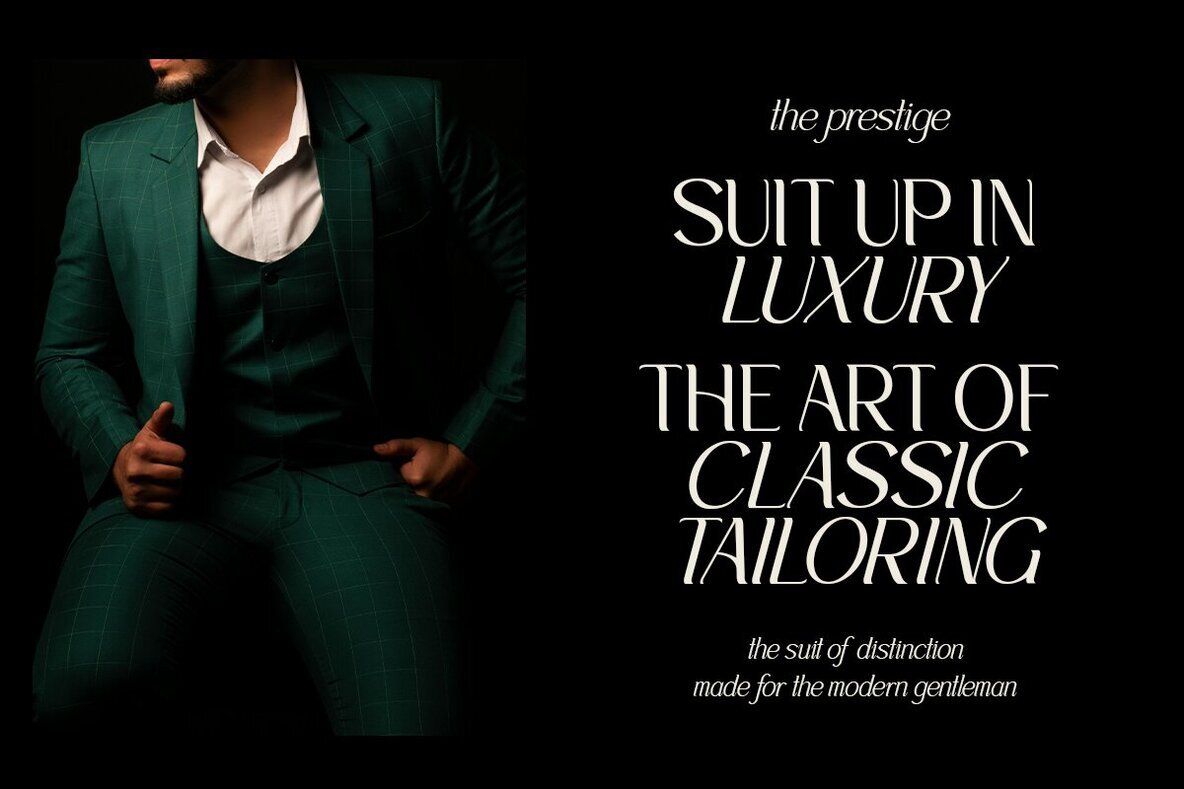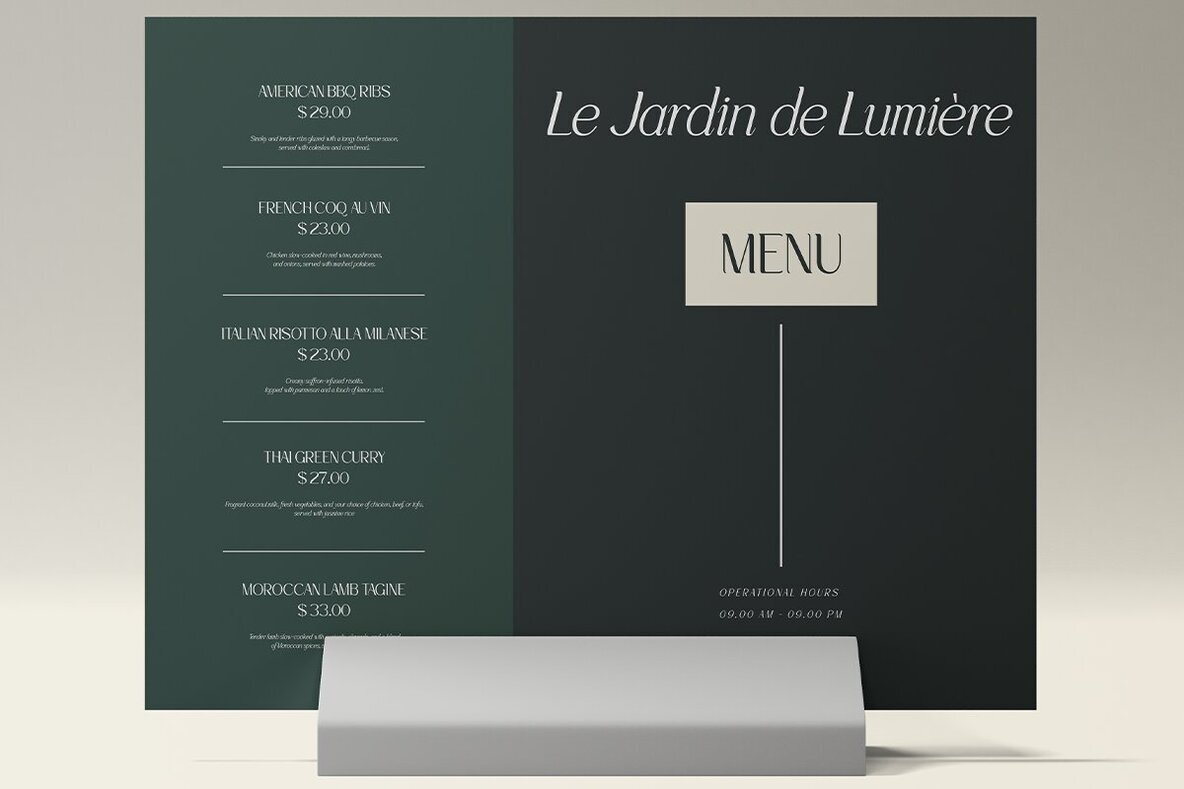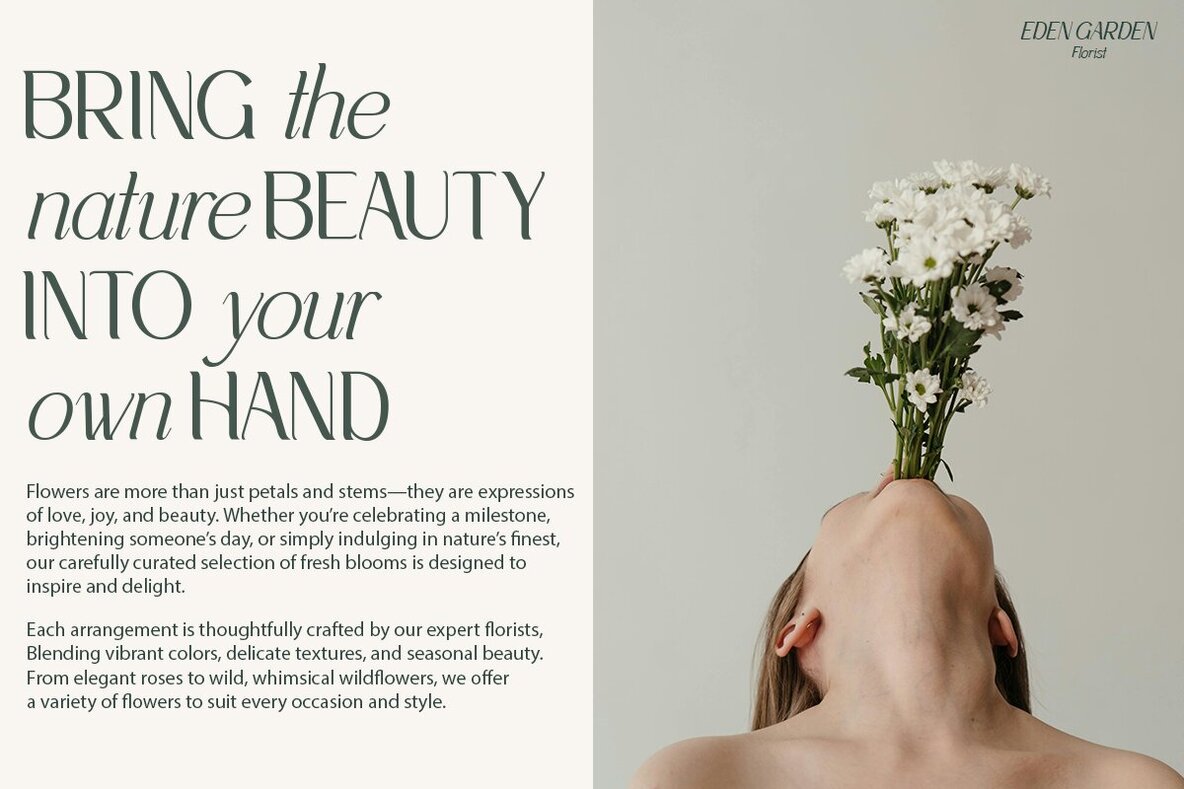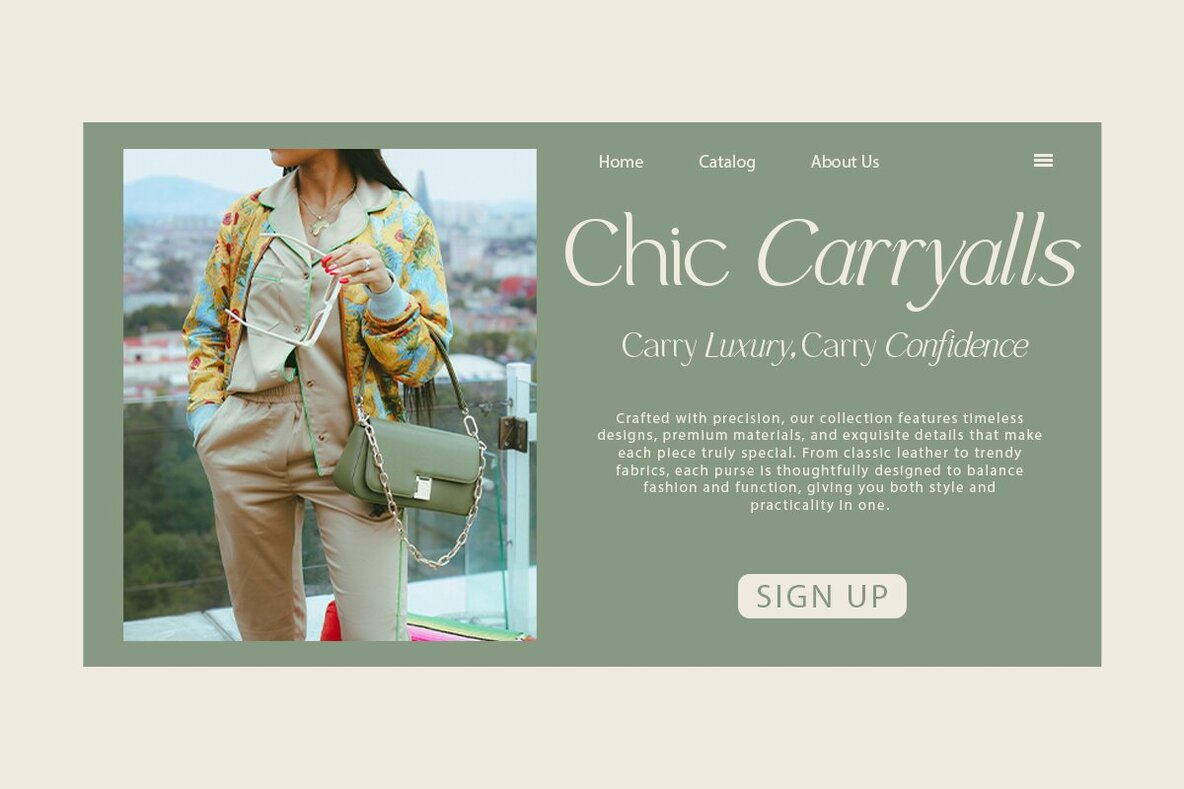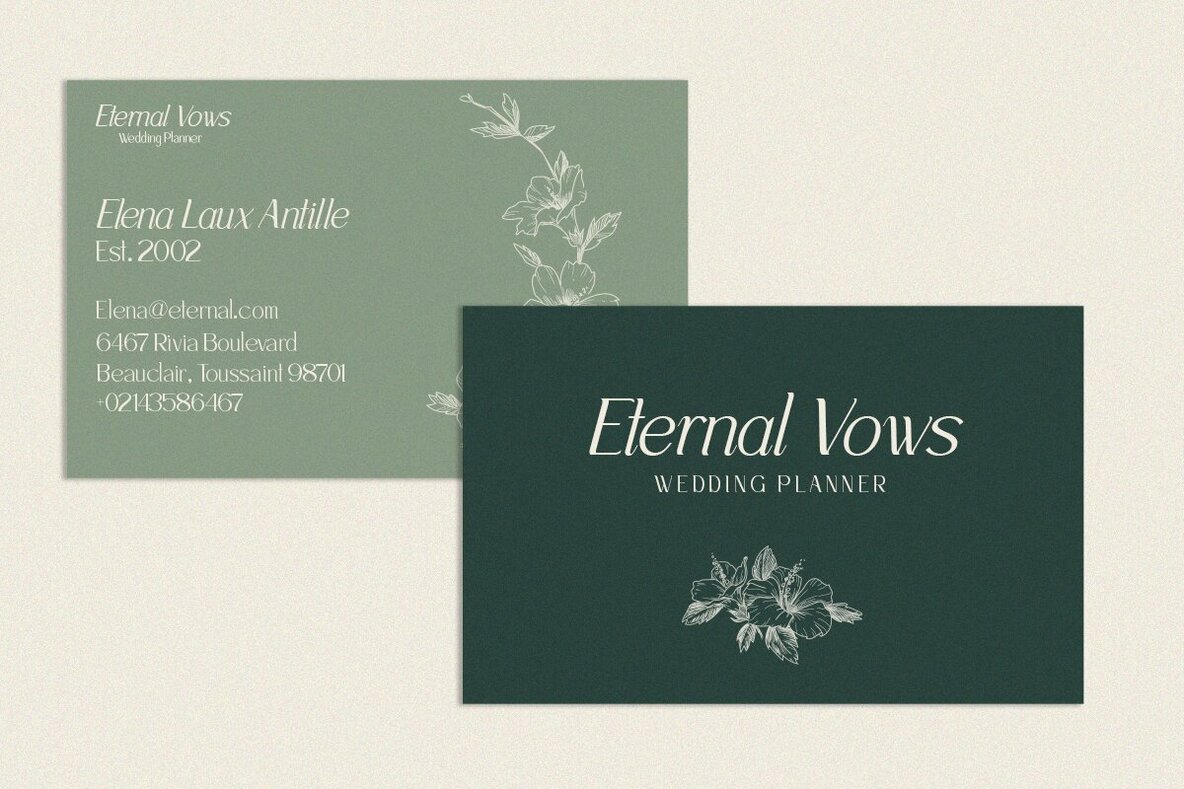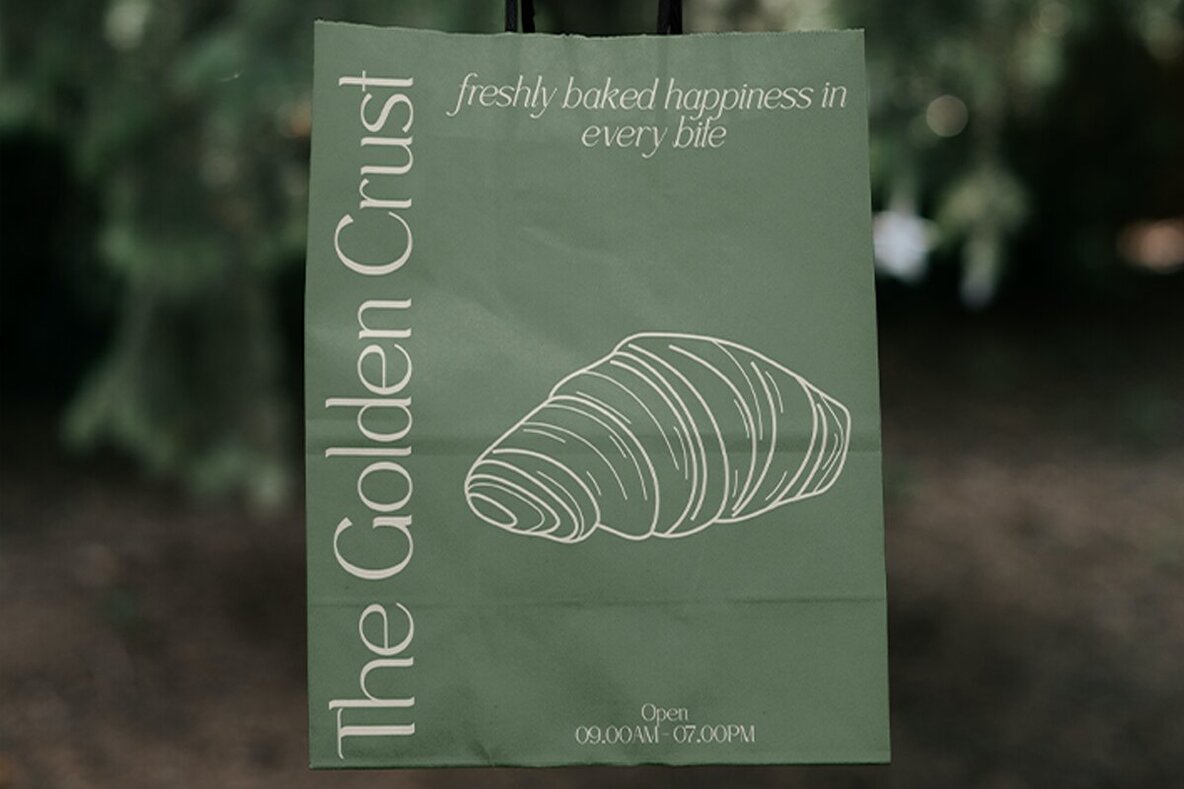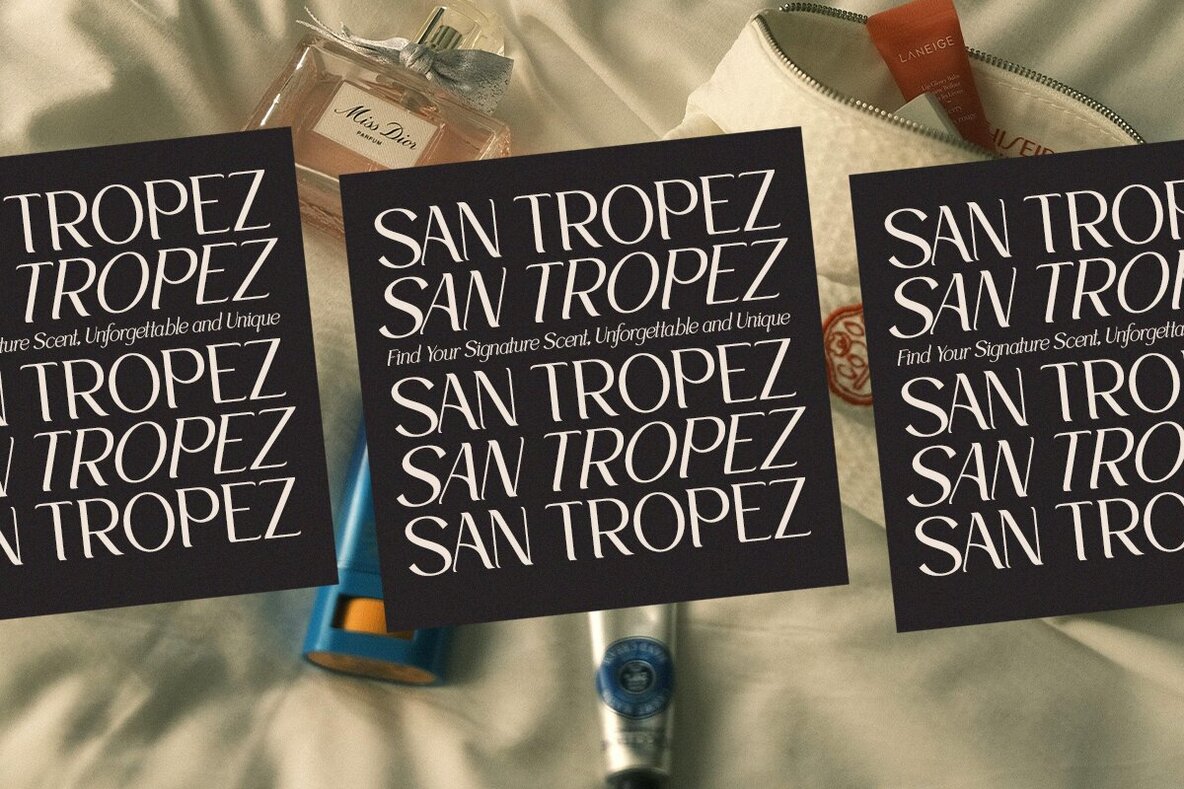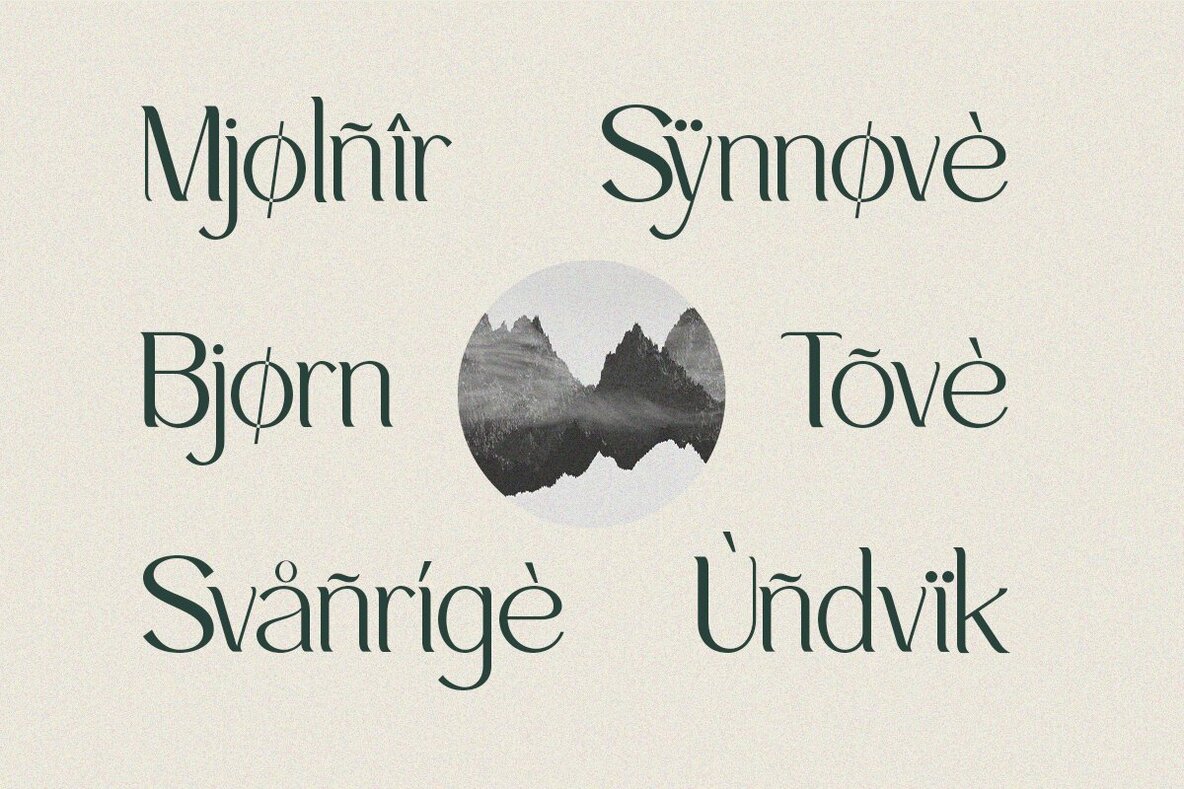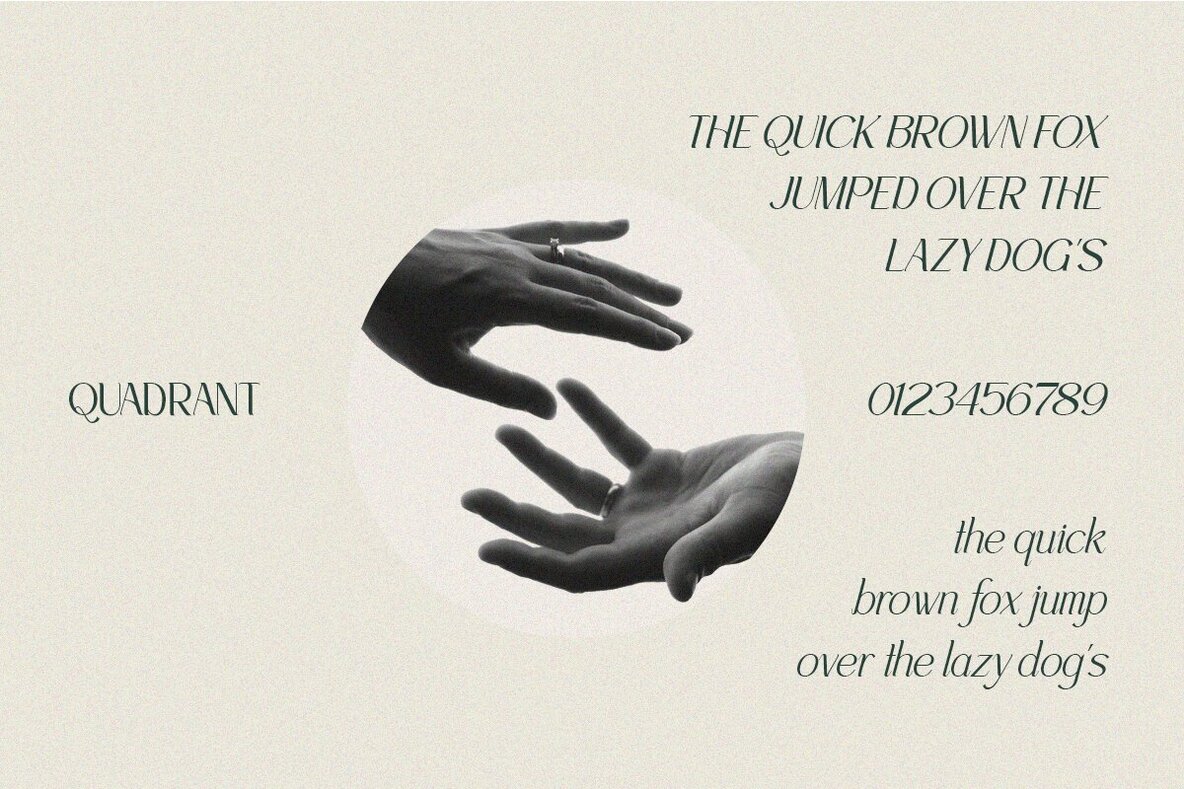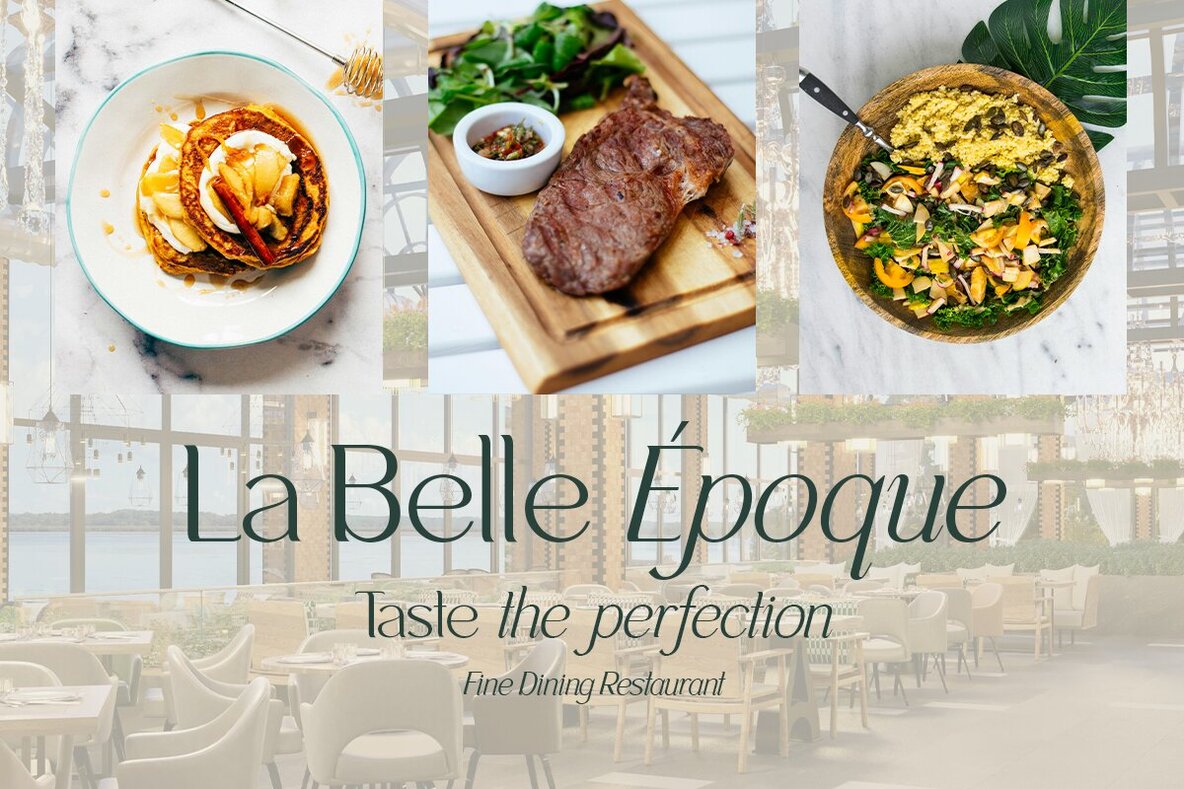
Quadrant Font
Quadrant is a clean sans-serif font available in both regular and italic styles, designed for a harmonious visual experience. The bold and elegant uppercase of the regular serif pairs seamlessly with the sleek and sophisticated lowercase of its italic variant. This balance makes Quadrant ideal for simple, clean lifestyle designs, ranging from logos and titles to magazine layouts.
Key features of Quadrant include multilingual support, catering to a global audience. The font is also designed for easy installation, streamlining its use for digital designers. Whether you're working on branding or editorial projects, Quadrant is a versatile choice that enhances your design with its contrasting yet harmonious style.